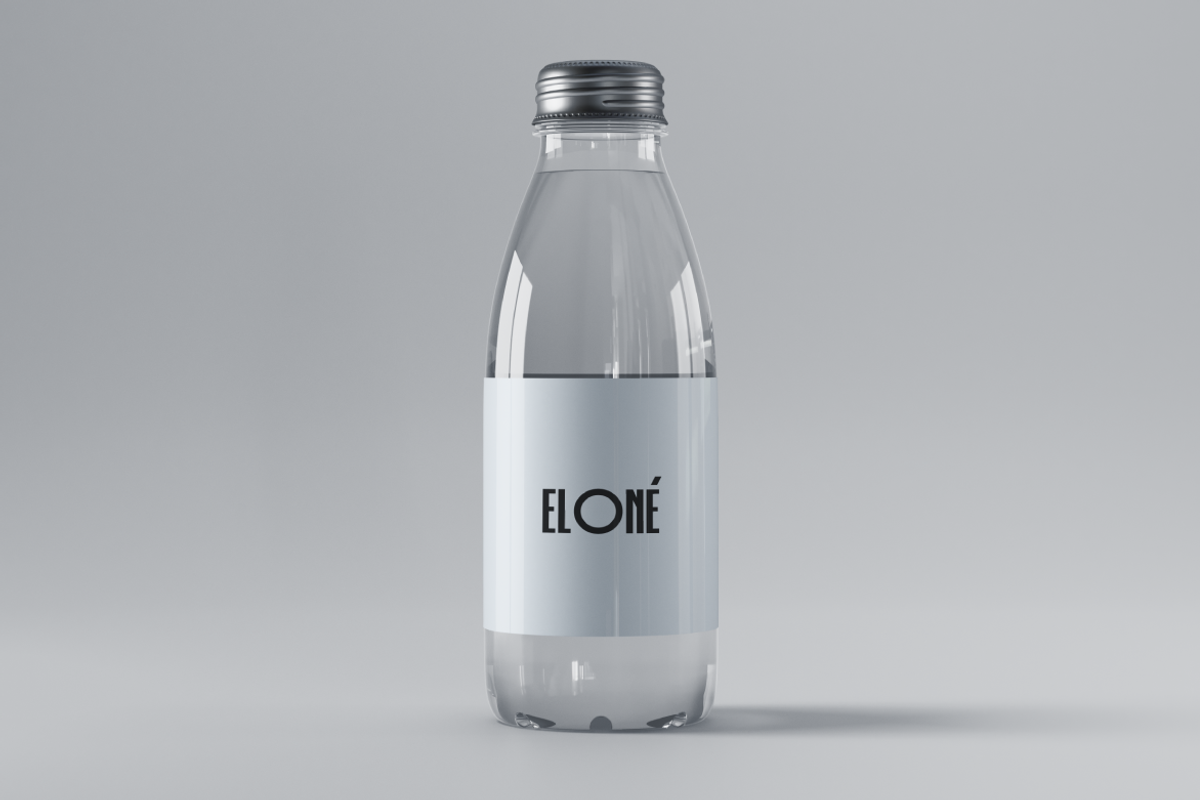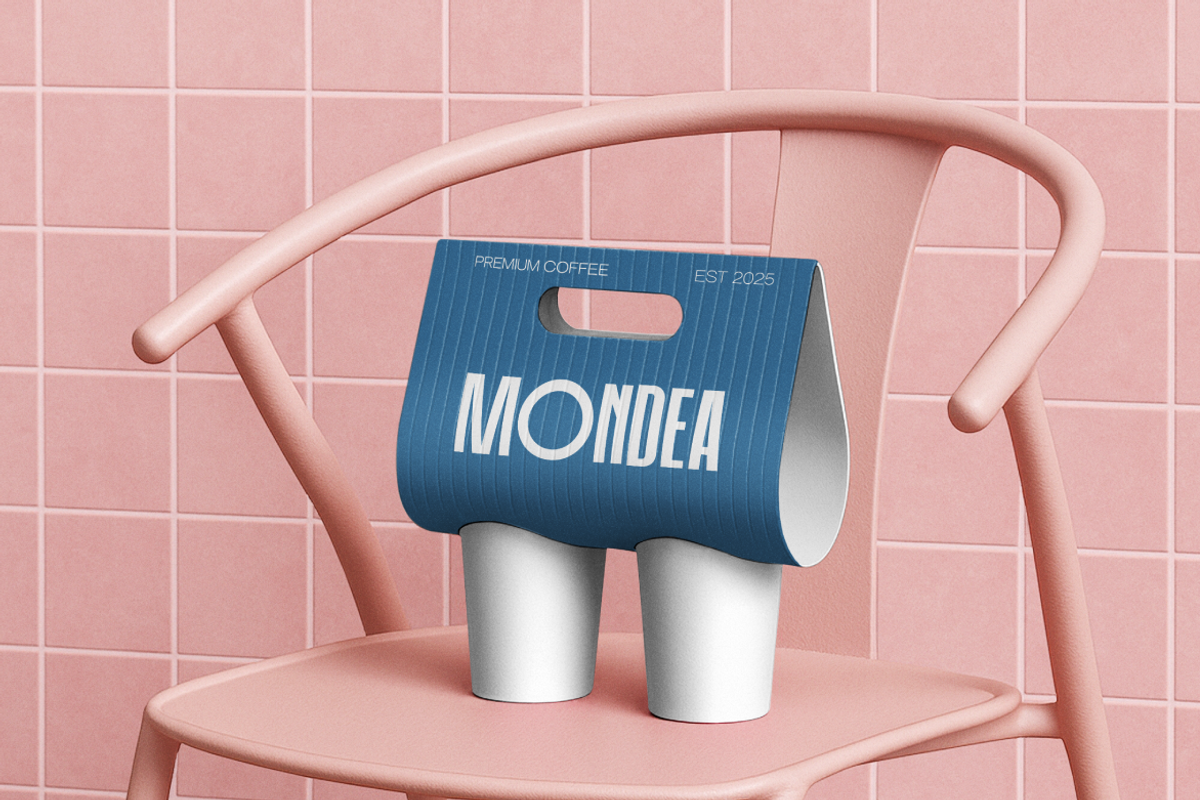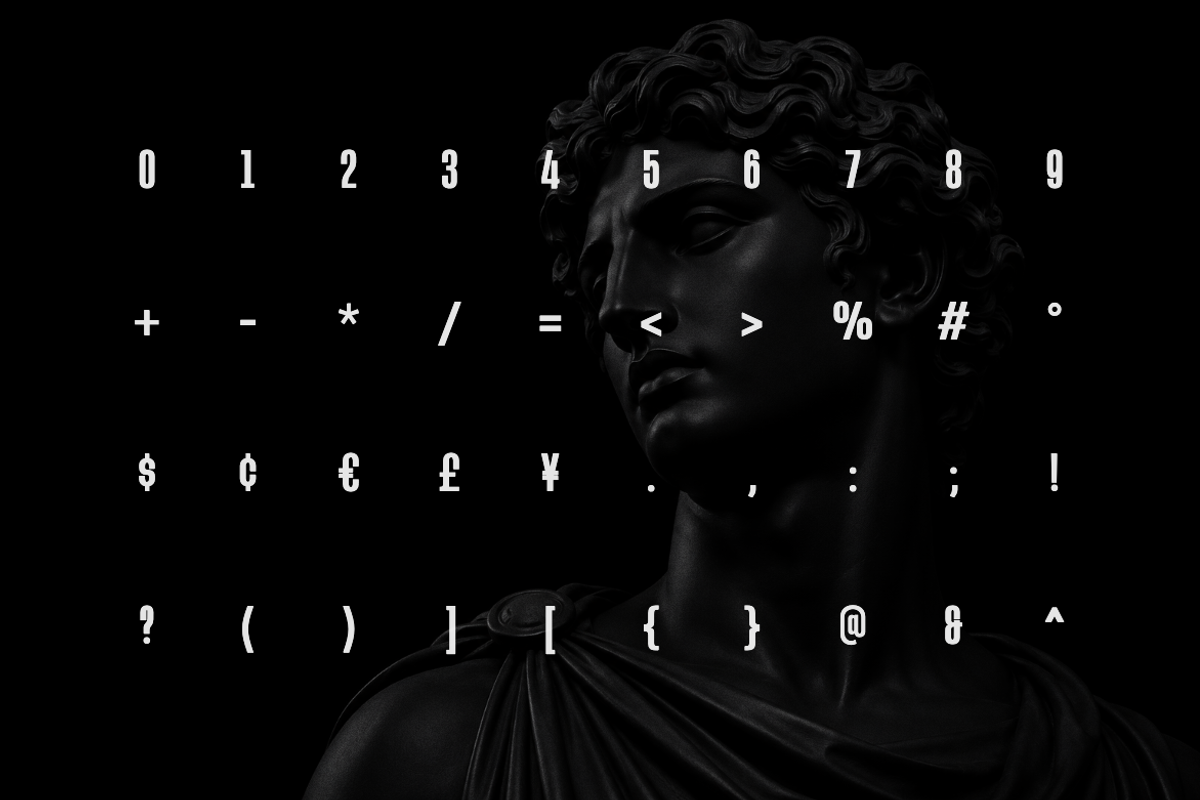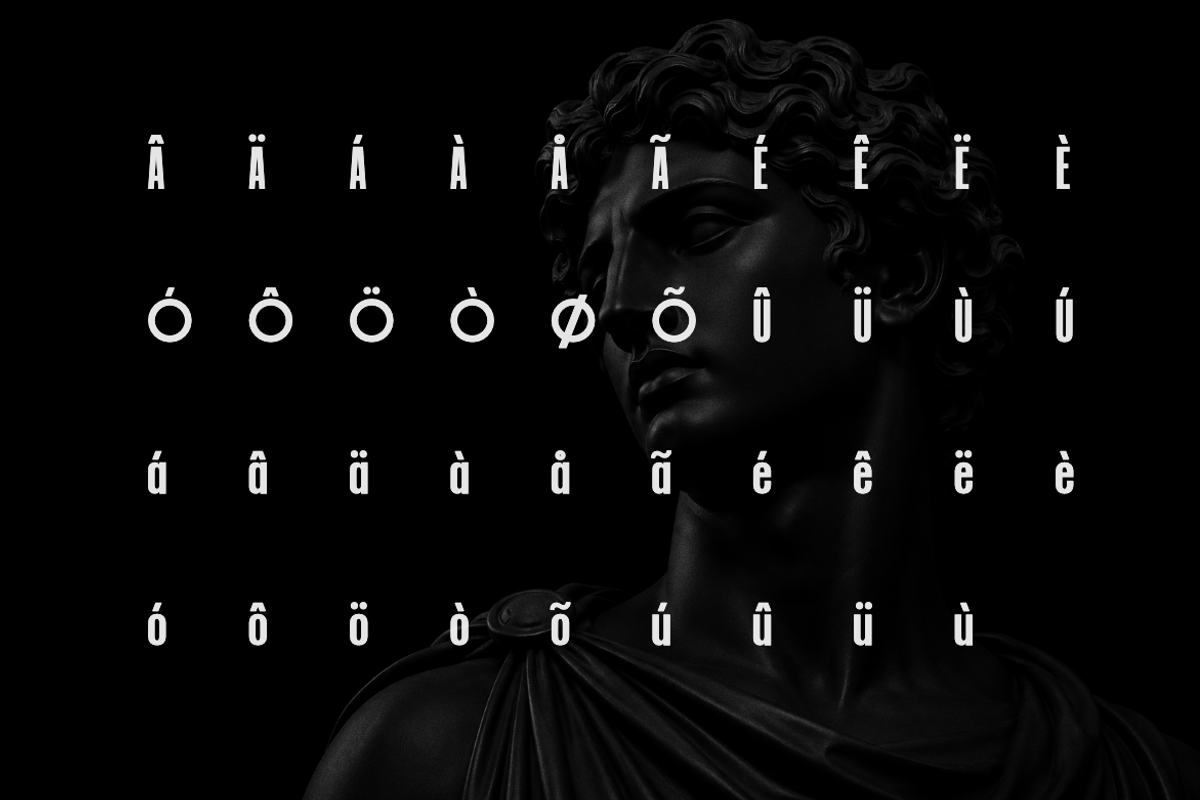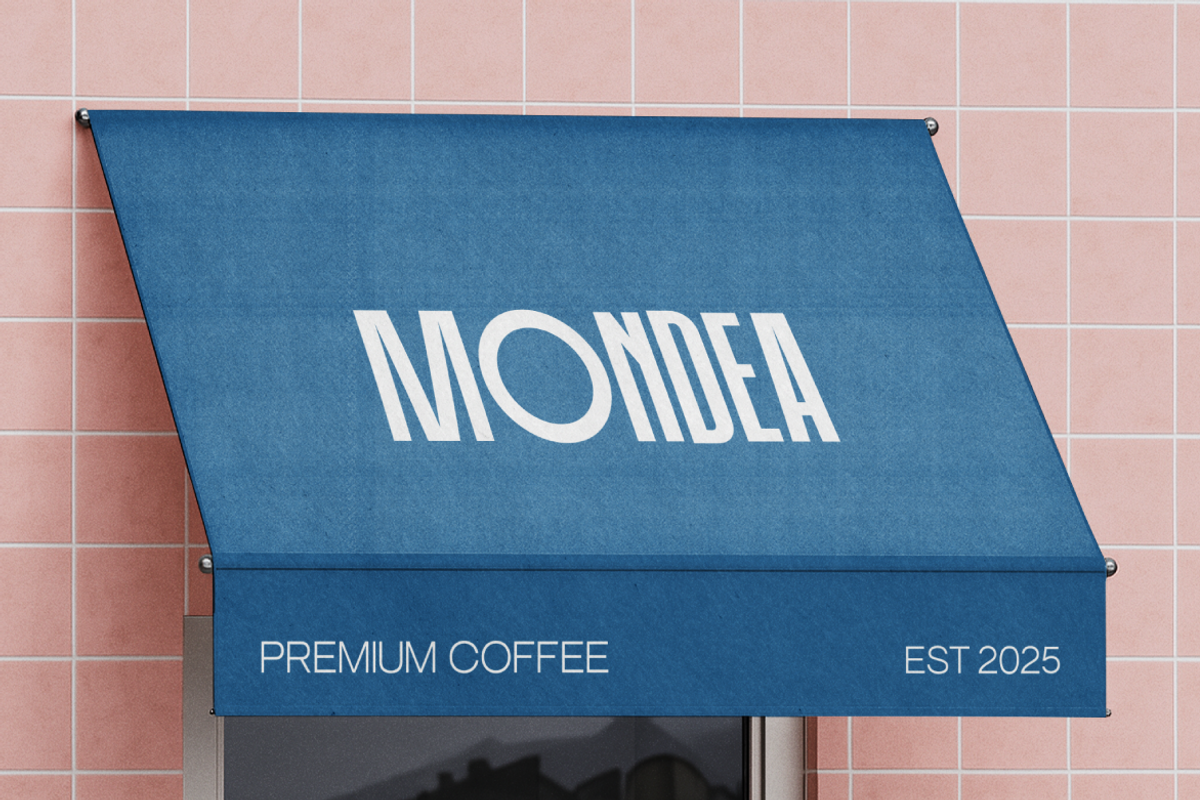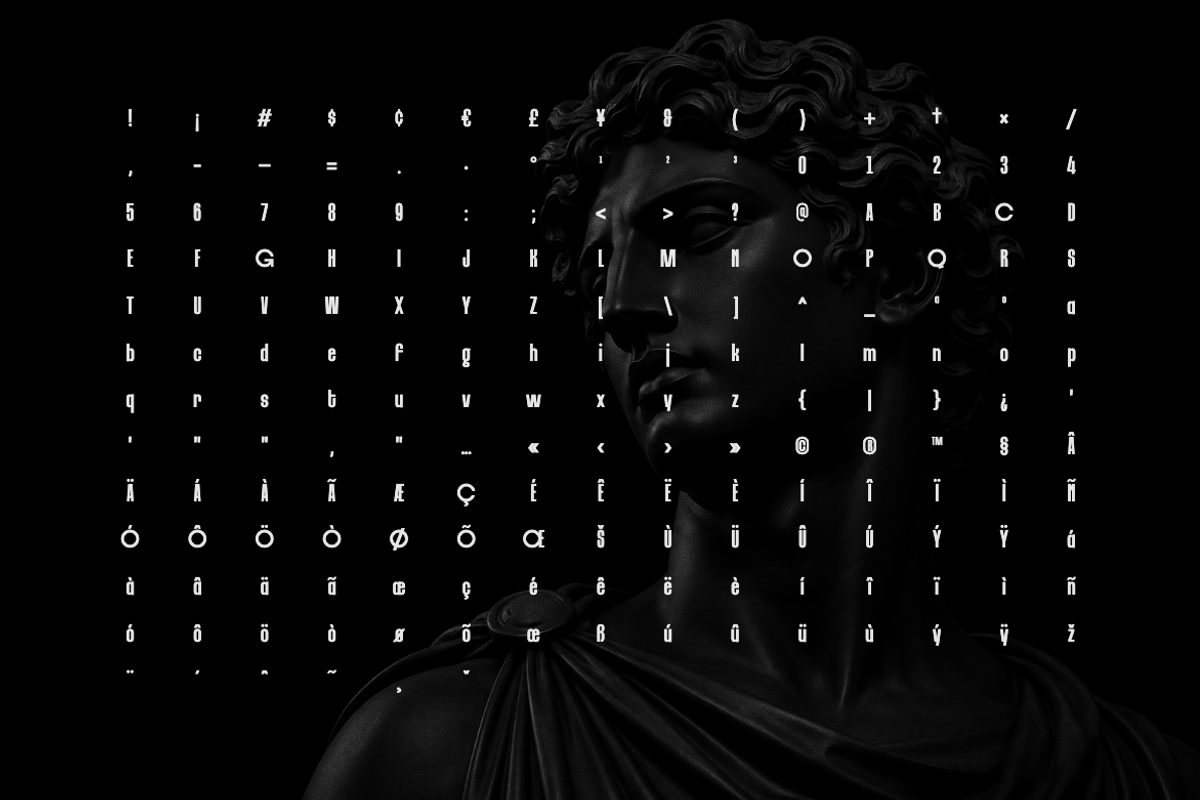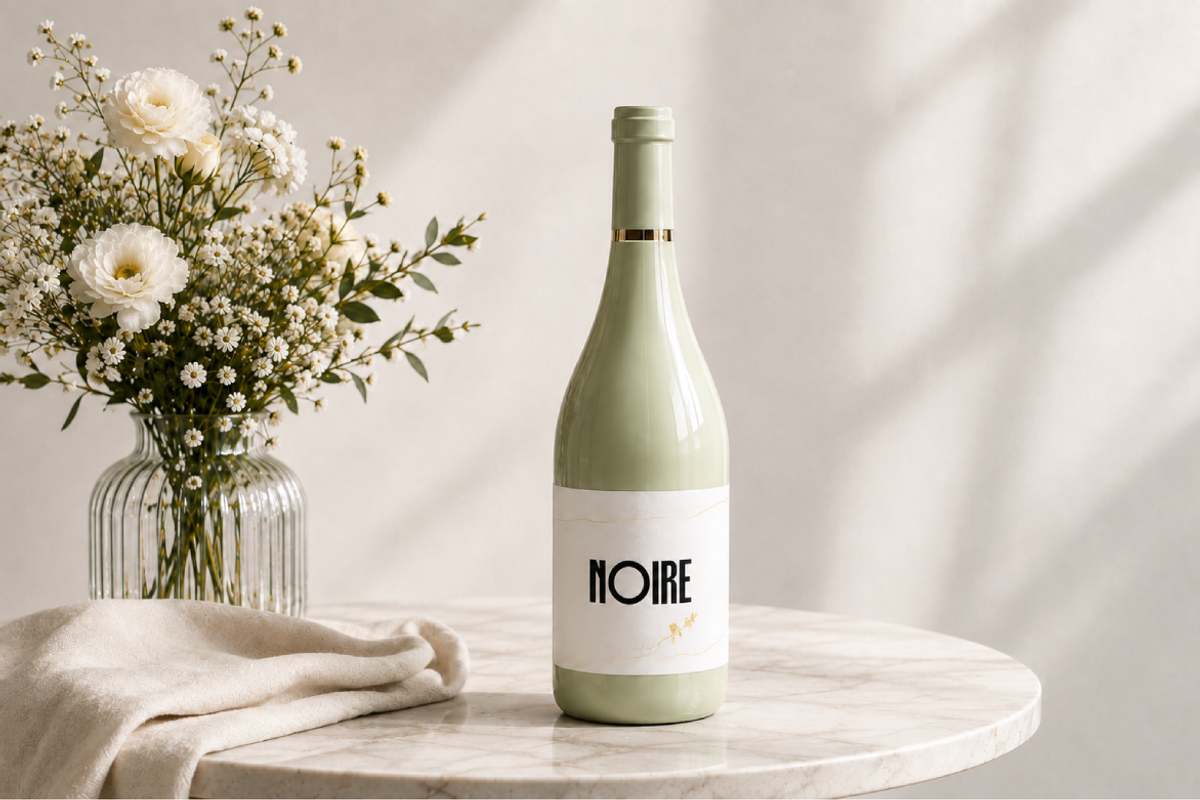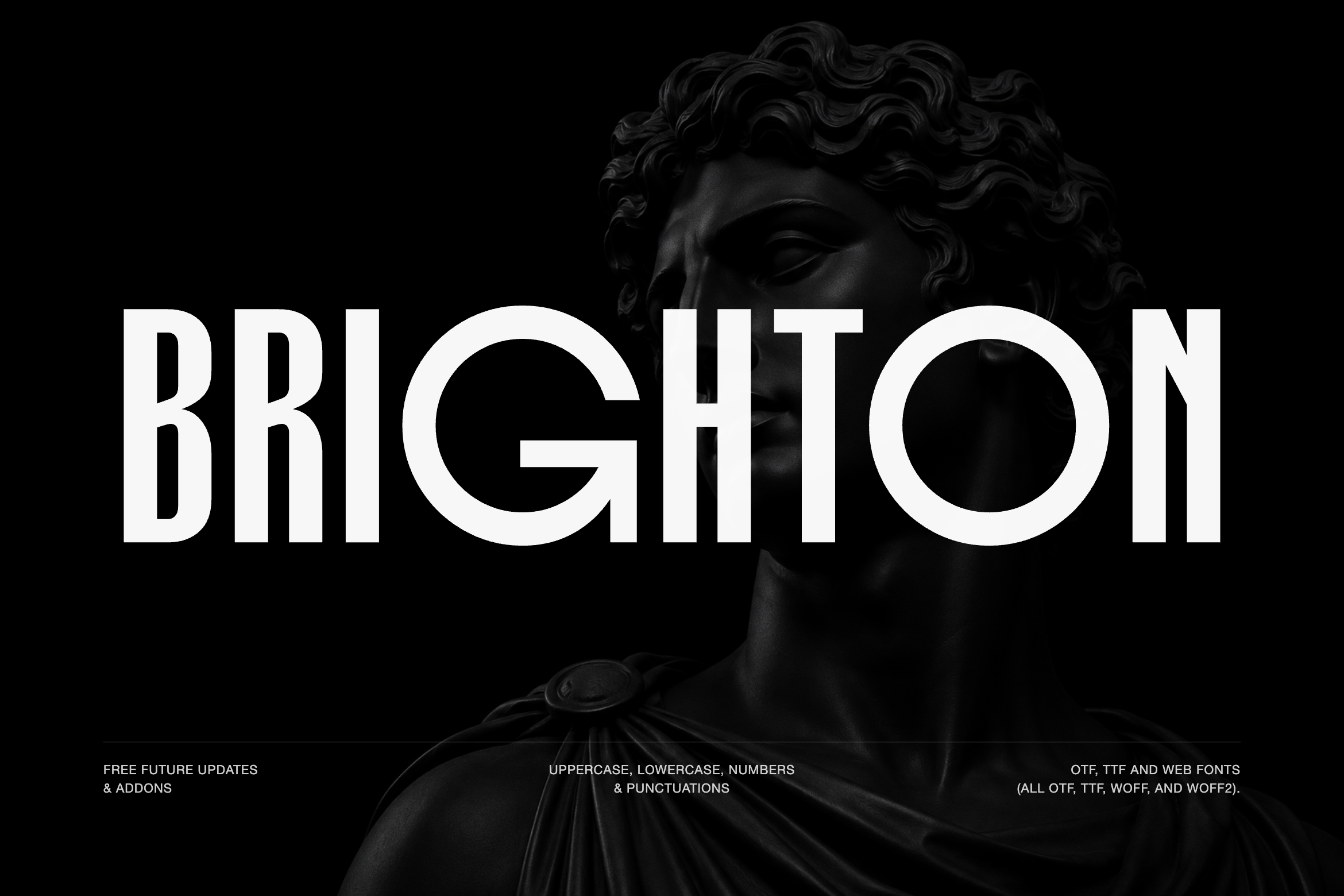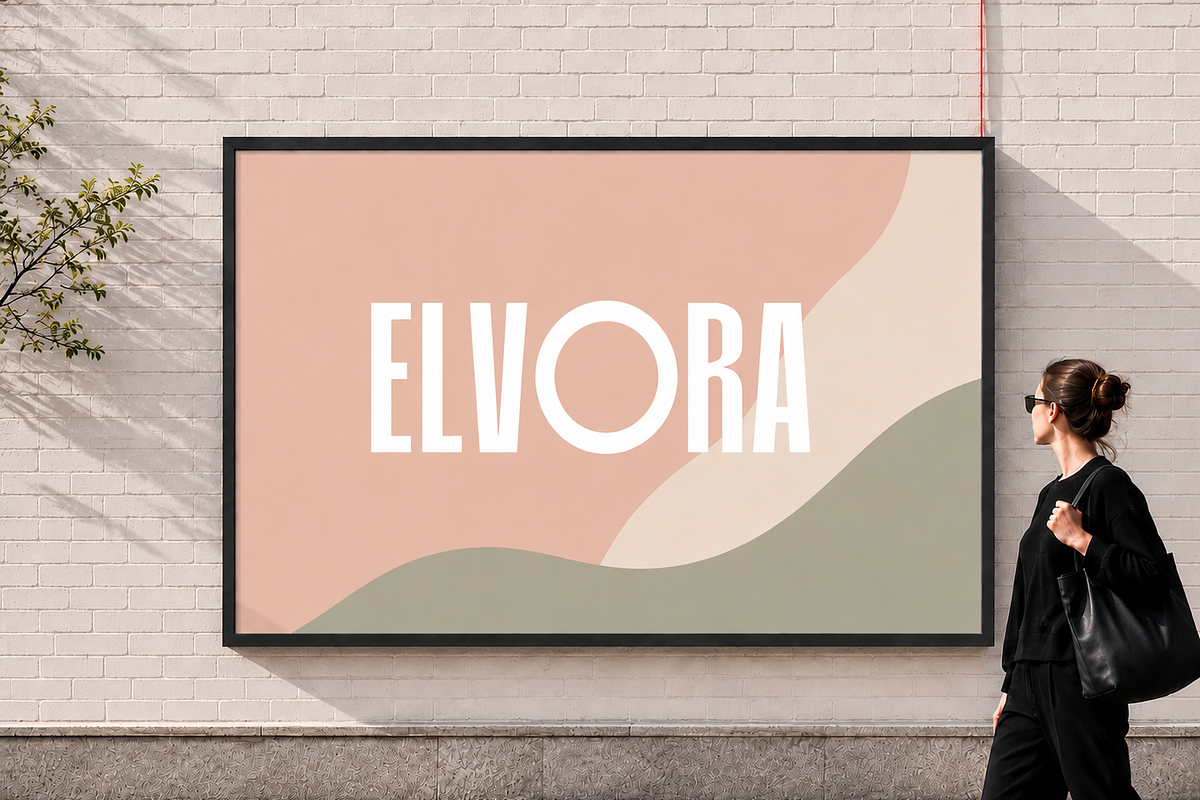
Brighton – Modern Display Typeface
BRIGHTON – Modern Display Typeface
Upgrade your design toolkit with Brighton, a bold and modern display font crafted for standout branding, striking logos, and high-impact visual projects. Featuring a complete character set including uppercase letters, lowercase letters, numbers, and essential punctuation, this versatile typeface delivers clean geometry and premium appeal. Whether you are designing modern packaging, editorial headers, or minimalist social media graphics, Brighton brings professional polish and creative flexibility to your typography collection.
* Best Use Cases:
UI and UX design • Web and app interfaces • Dashboards and data visualization • Branding and identity systems • Editorial layouts and publications • Marketing and digital assets • Presentations and business documents
* Supported Languages:
Afar, Afrikaans, Aragonese, Asu, Bemba, Bena, Catalan, Cebuano, Chiga, Corsican, Danish, Taita, German, English, Spanish, Basque, Filipino, French, Friulian, Western Frisian, Irish, Scottish Gaelic, Galician, Swiss German, Gusii, Manx, Interlingua, Indonesian, Ido, Italian, Lojban, Machame, Jju, Makonde, Kabuverdianu, Kalaallisut, Kalenjin, Shambala, Cornish, Latin, Luxembourgish, Ligurian, Luo, Luyia, Morisyen, Malagasy, Makhuwa-Meetto, Malay, Norwegian Bokmål, North Ndebele, Low German, Dutch, Norwegian Nynorsk, Norwegian, South Ndebele, Northern Sotho, Nyankole, Occitan, Oromo, Portuguese, Romansh, Rundi, Rombo, Kinyarwanda, Rwa, Samburu, Sangu, Sardinian, Sena, Sango, Sidamo, Southern Sami, Shona, Somali, Albanian, Swati, Saho, Southern Sotho, Sundanese, Swedish, Swahili, Teso, Tswana, Taroko, Tsonga, Volapük, Vunjo, Walloon, Warlpiri, Xhosa, Soga, Zulu
* Multilingual Font
* Uppercase letters
* 200+ Glyphs
* Numbers
* Punctuations